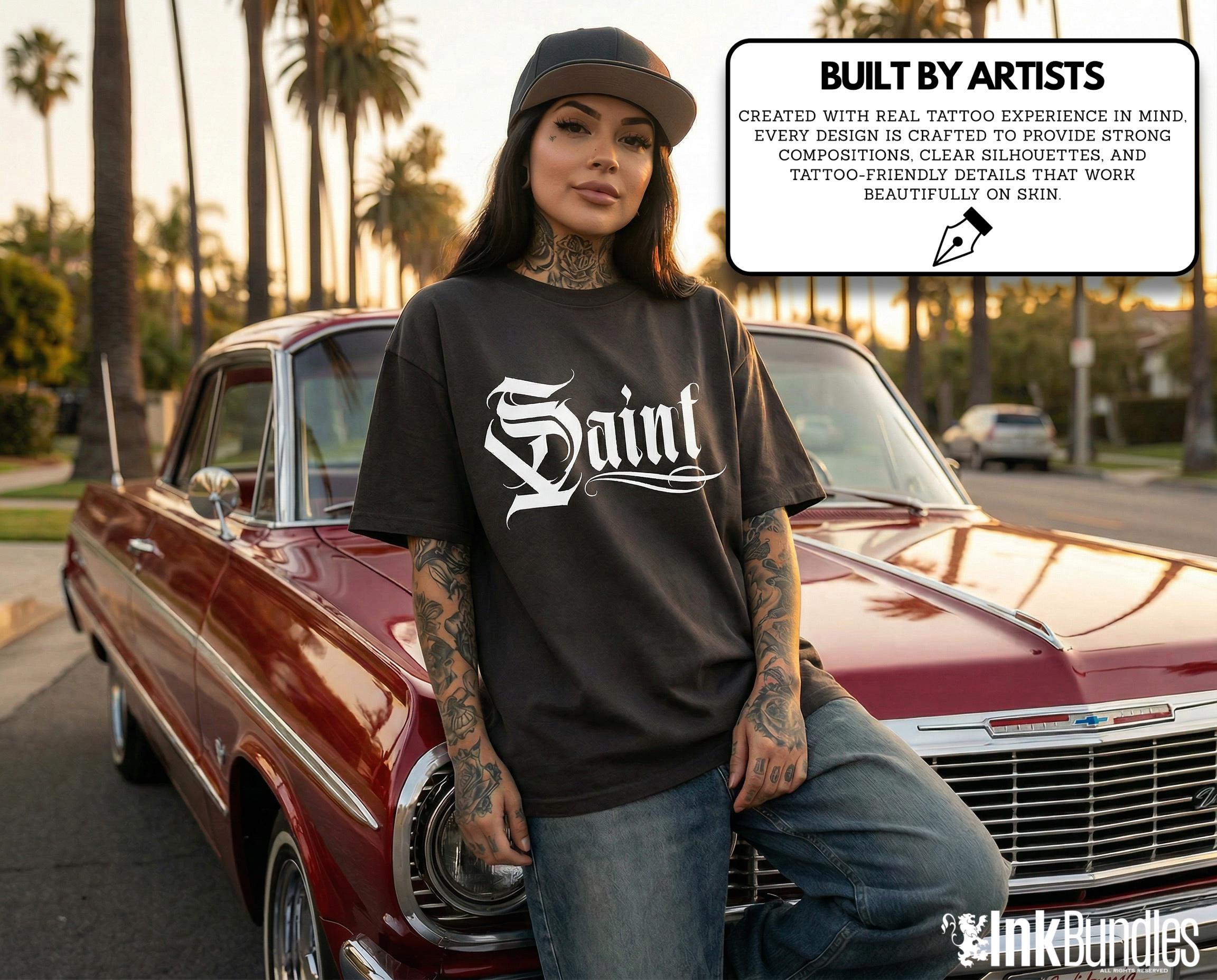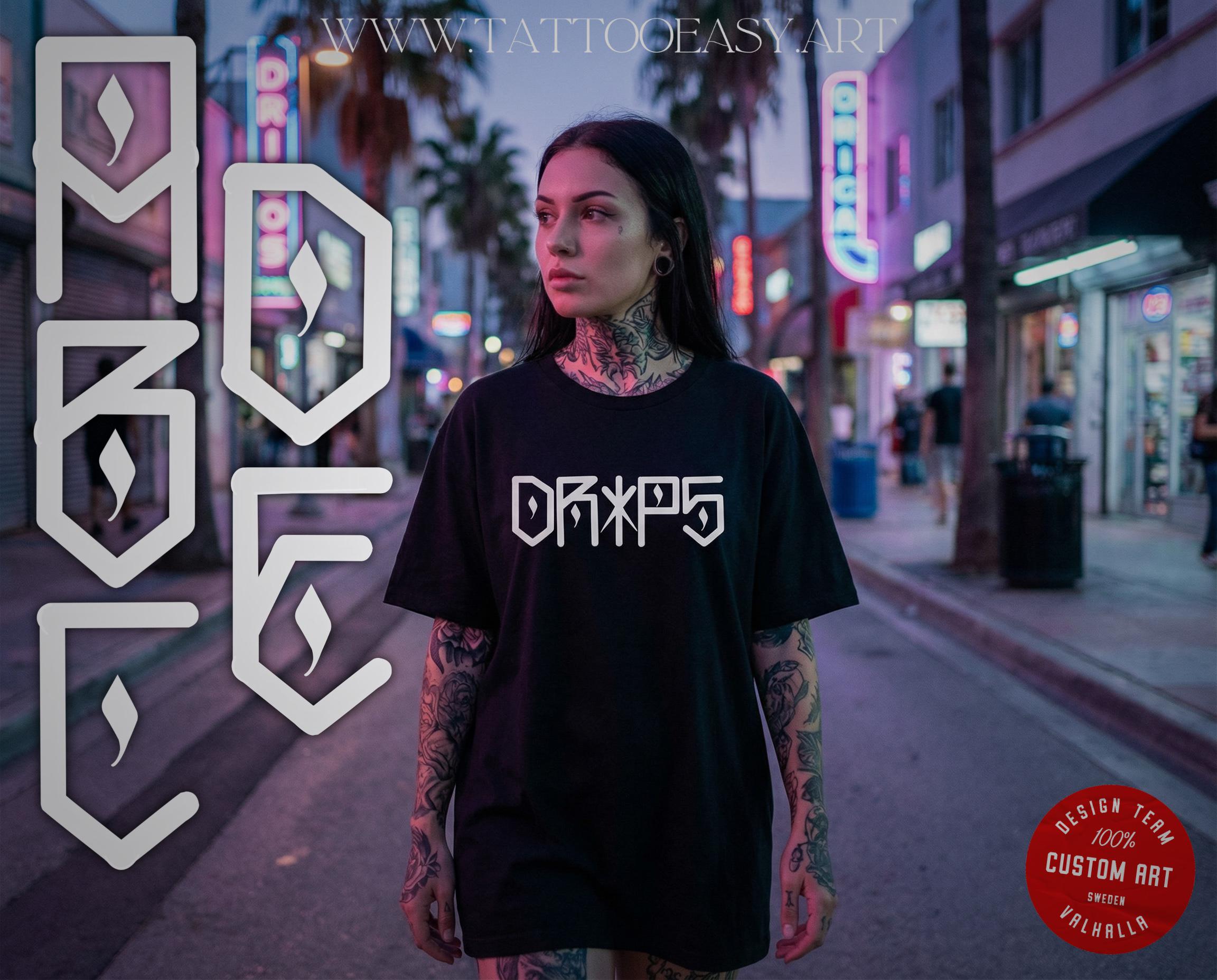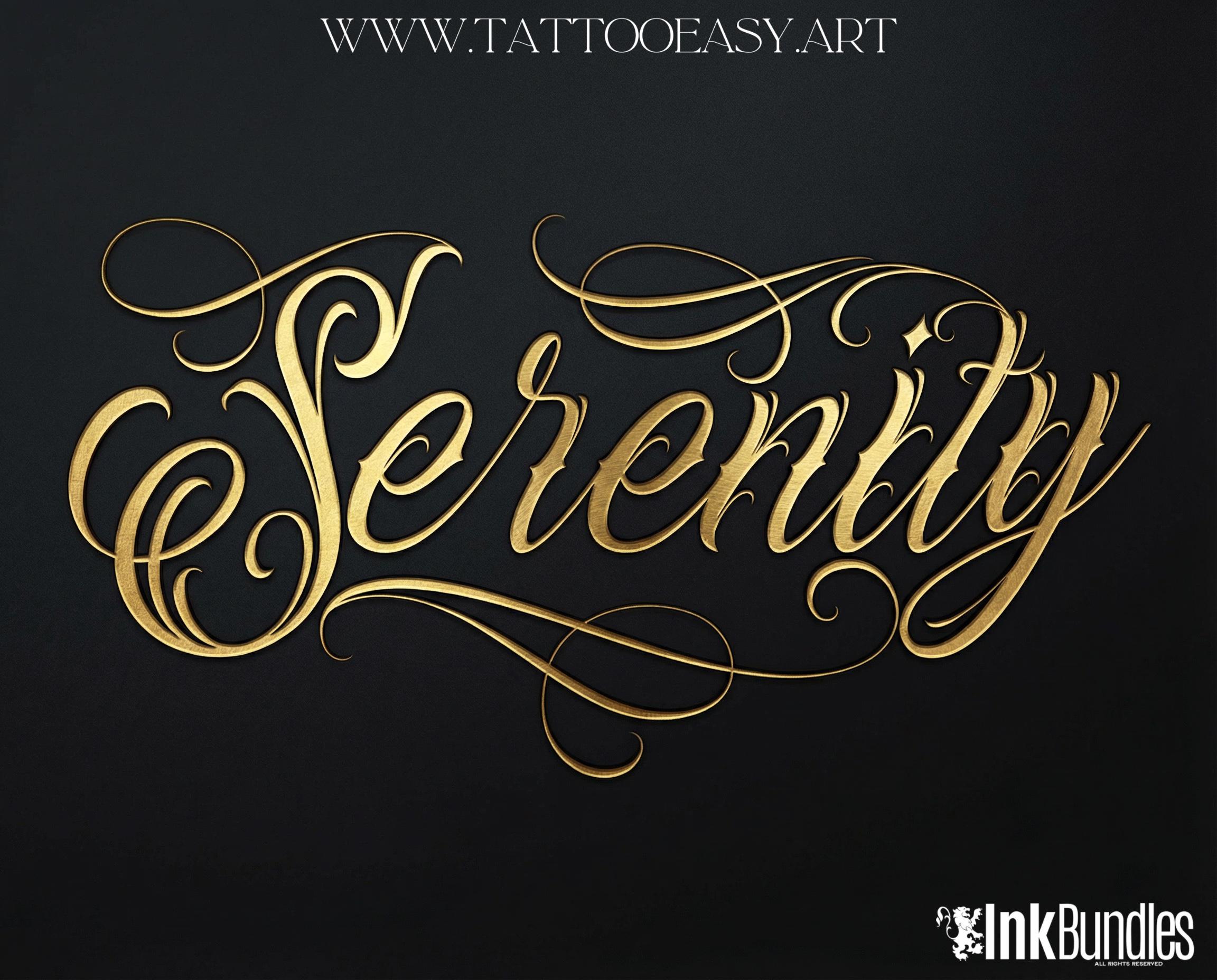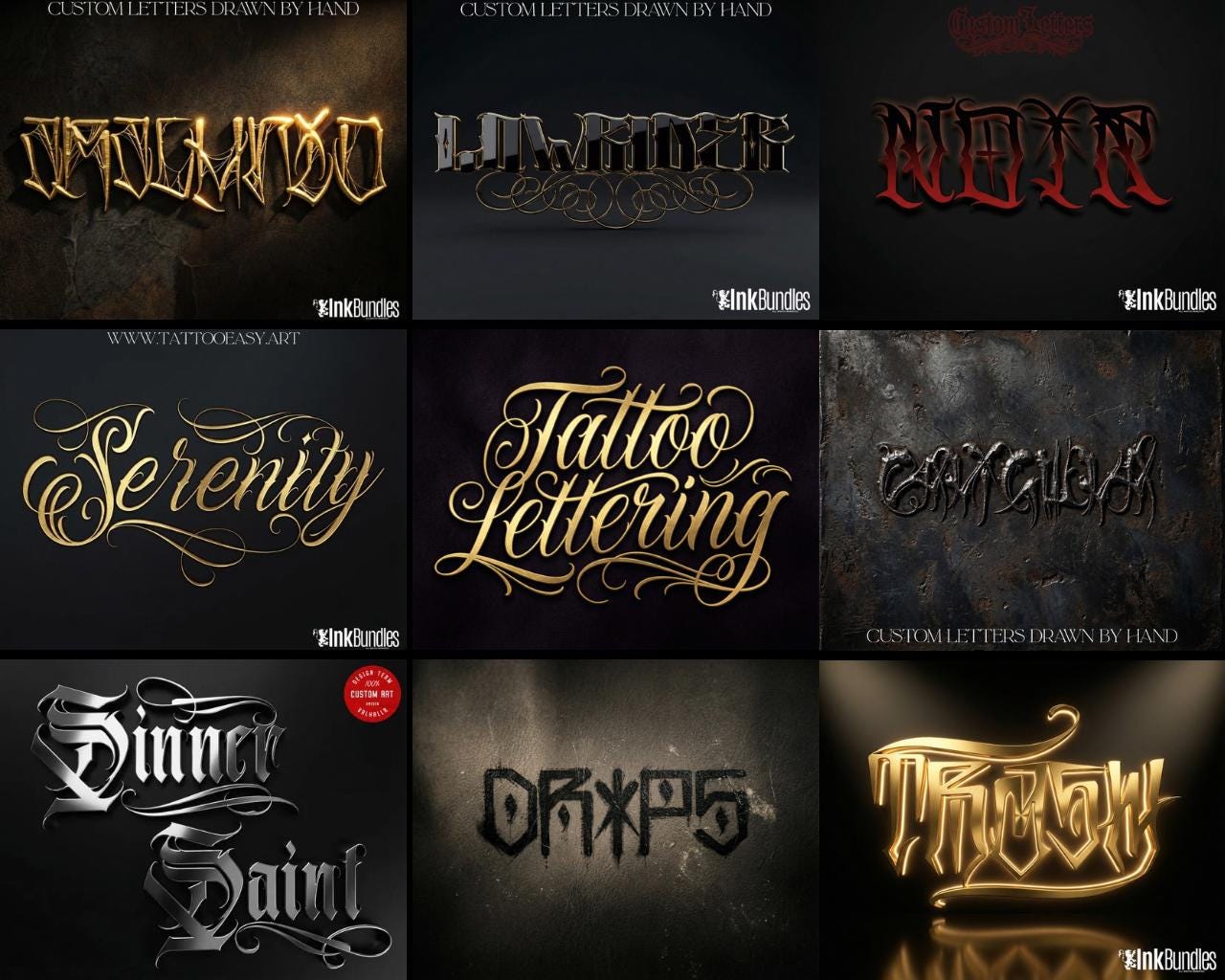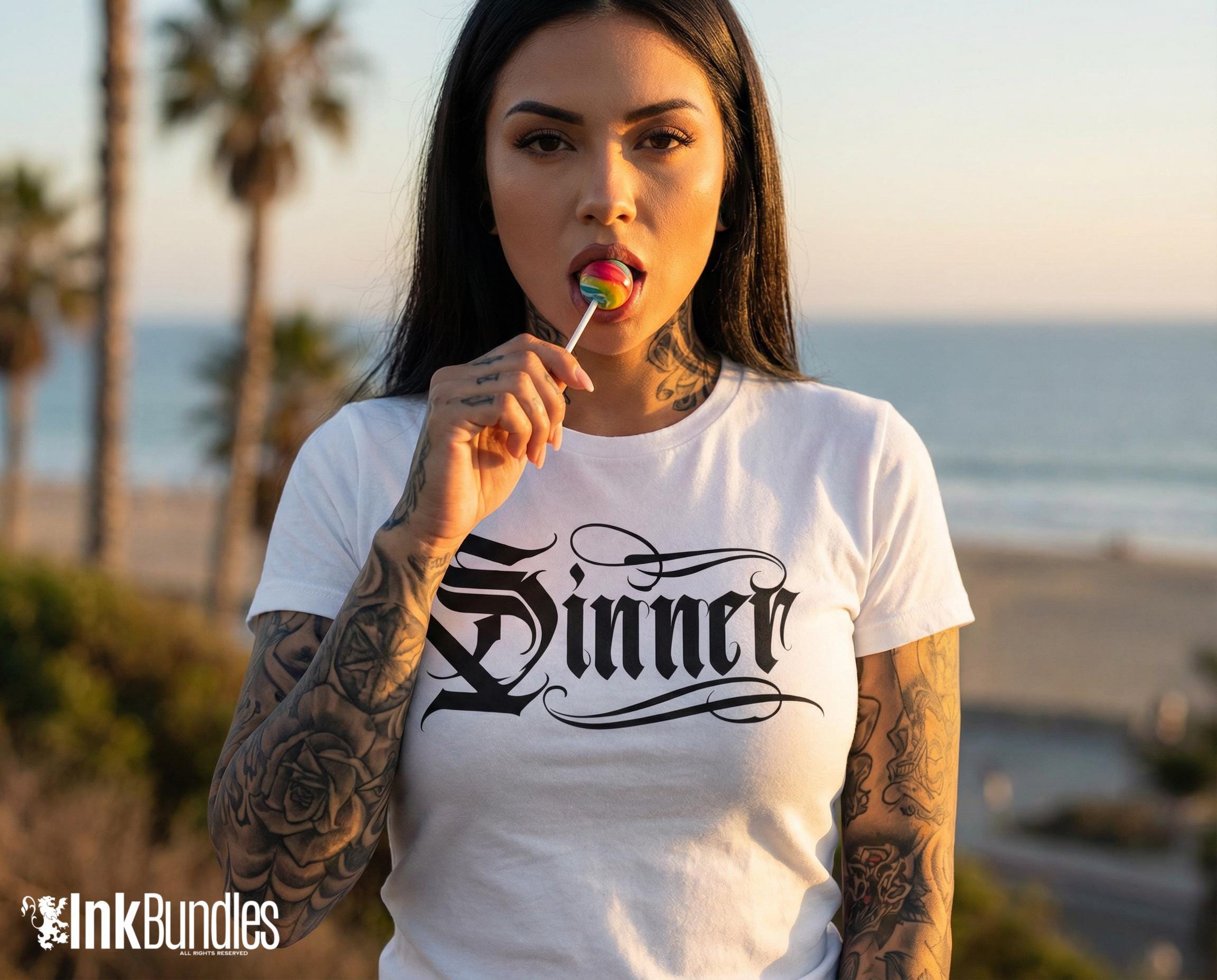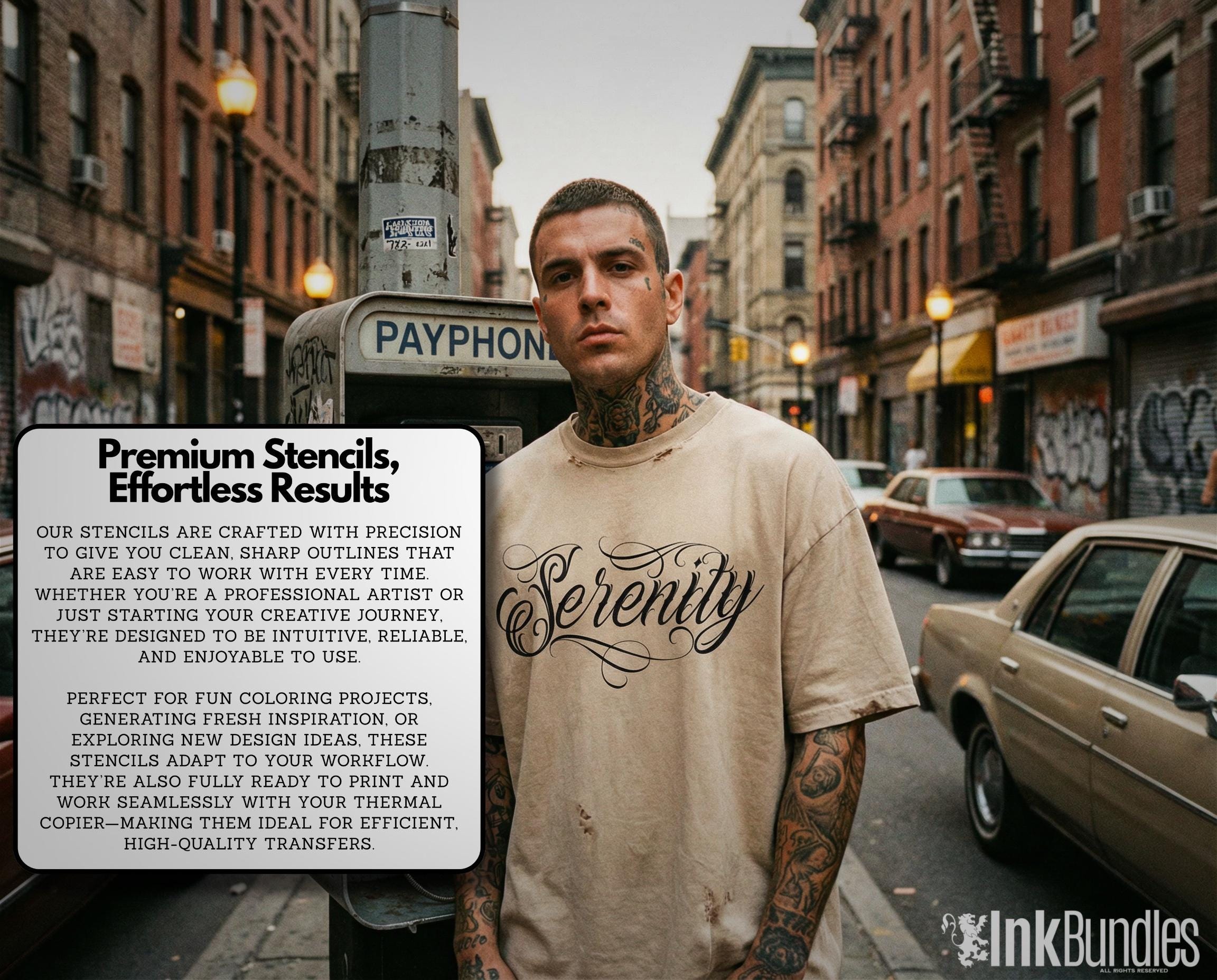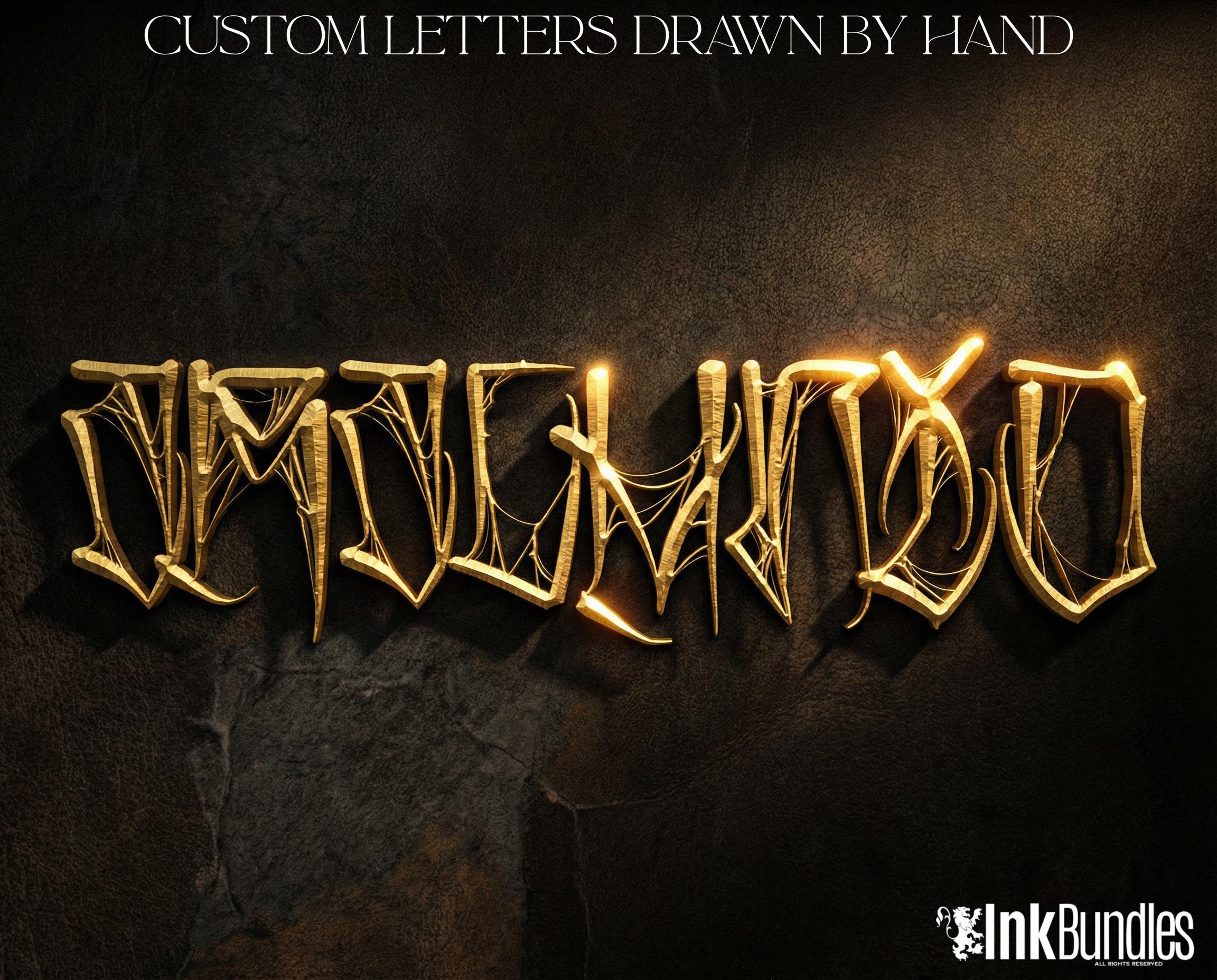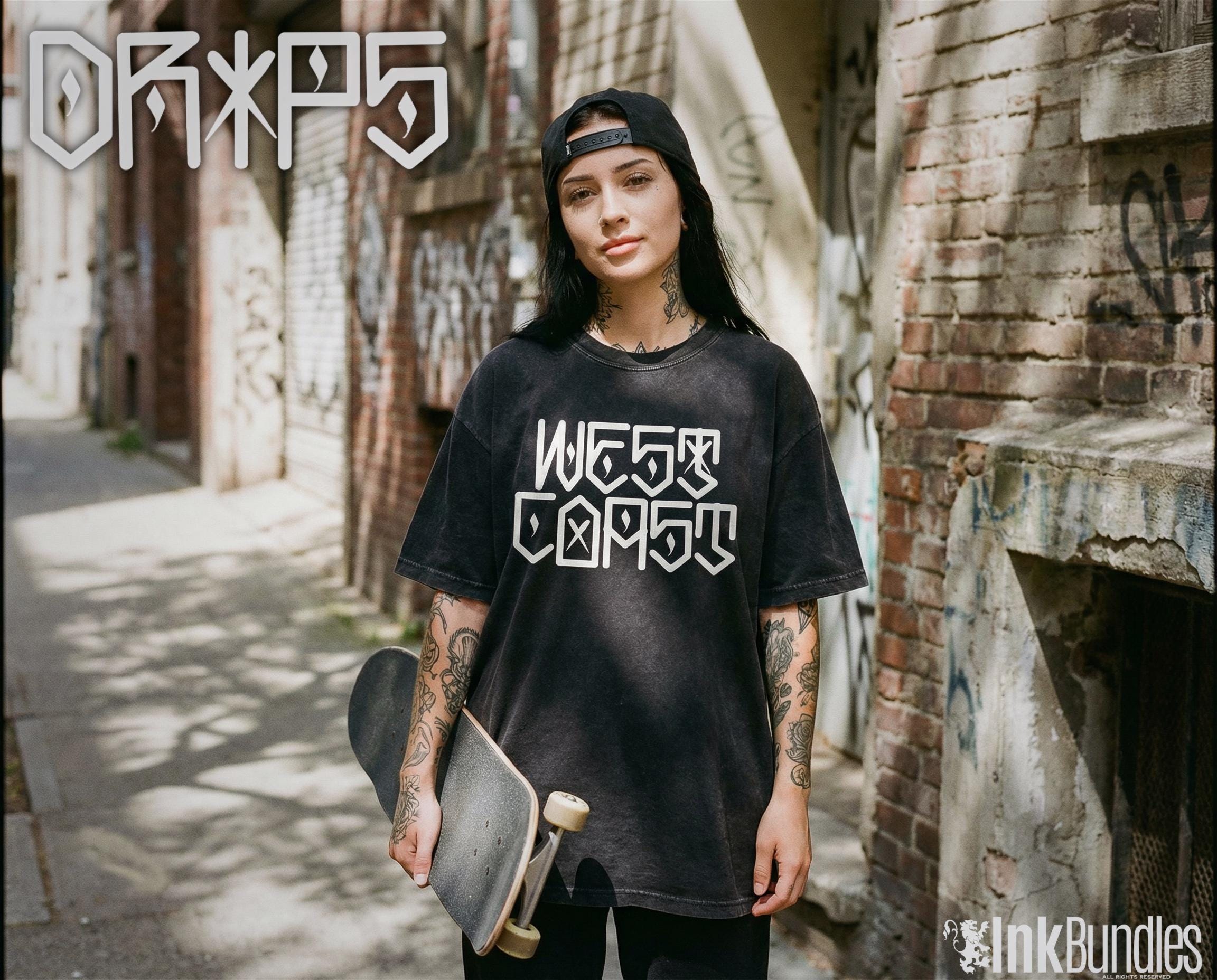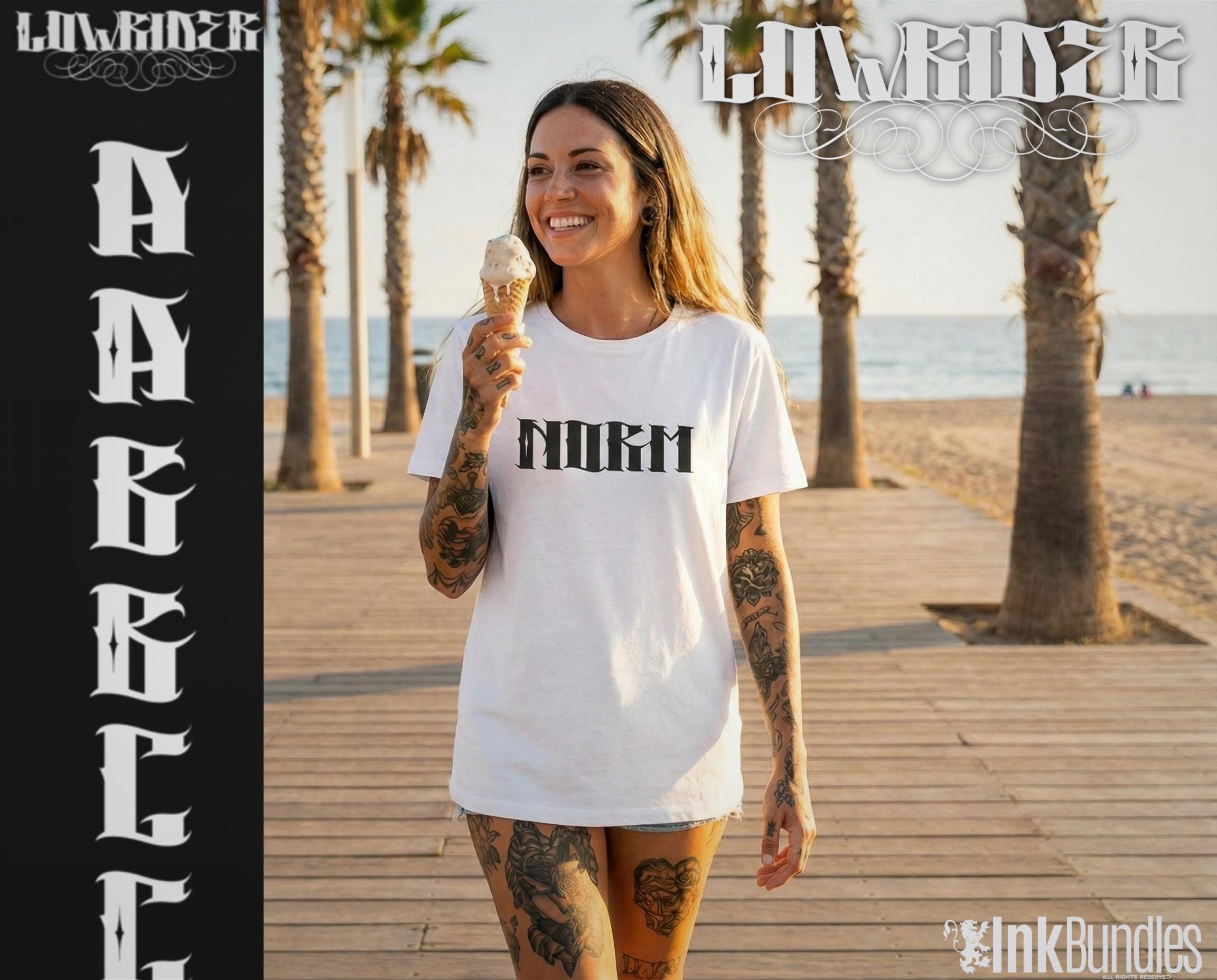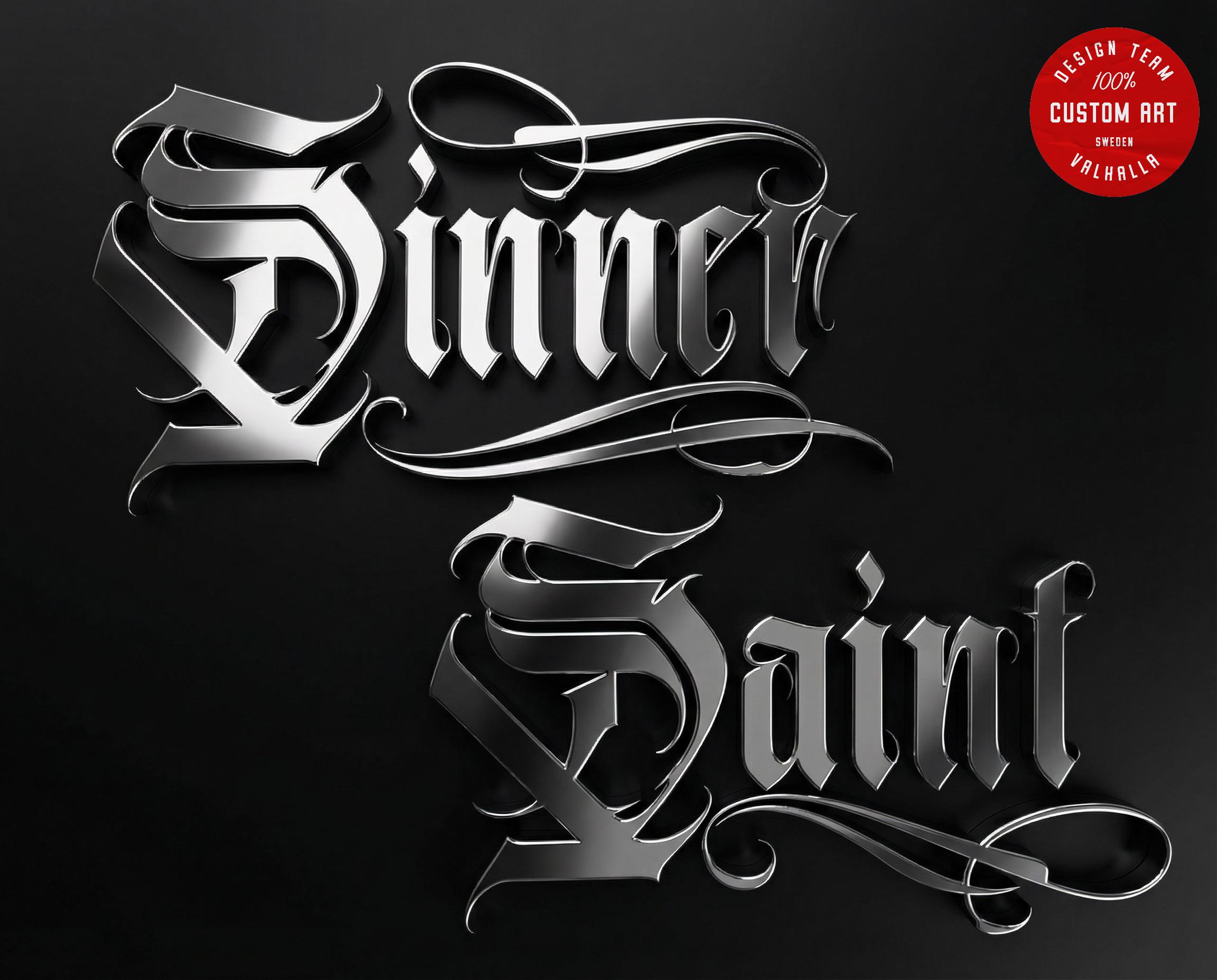
Tattoo Lettering Bundle for Procreate – Chicano Fonts, Custom Script Brushes, PNG & SVG Lettering Pack
Premium tattoo lettering bundle for artists featuring Chicano-style fonts, custom script lettering, and Procreate brushsets. Includes high-quality PNG & SVG files for tattoos, logos, and digital art. Perfect for tattoo artists and designers.
† Arachnid †
† Blackthorn †
† Caligula †
† Drips †
† Homesick †
† Loki †
† Lowrider †
† Noir †
† Serenity †
† Sinner †
† Street letters †
† Trash †
† Ben & Jerrys †
† Blackletters †
† Vixen †
Introducing Tattoo Lettering Bundle Vol. 3 – The Ultimate Creative Lettering Toolkit
Take your artistry to the next level with Tattoo Lettering Bundle – Volume 3, a powerful addition to our renowned series. Designed for tattoo artists, graphic designers, and lettering enthusiasts, this bundle is packed with expertly crafted fonts and tools to elevate your work.
From bold scripts to intricate blackletter styles, Vol.3 offers an extensive selection of high-quality lettering options perfect for tattoos, T-shirts, stickers, logos, and more. Whether you're creating a masterpiece for a client or exploring personal projects, this collection provides the perfect balance of edge, elegance, and expression.
✦ Multiple Complete Alphabets
✦ Decorative Ornaments
✦ Elegant Swashes, Flourishes & Embellishments
This toolkit is built to empower creators across multiple industries:
✍ Tattoo Artists: Create authentic custom lettering stencils, digital mockups, and accurate client previews in seconds.
🖋️Graphic Designers: Design striking brand identities, custom typography prints, and unique packaging.
🔱Digital Artists: Seamlessly blend traditional tattoo typography into your existing digital illustrations.
🐉Apparel & POD Sellers: Craft high-quality, typography-based clothing and merchandise that stands out.
🦅Small Business Owners: Build your own professional logos and promotional materials.
▻ Tattoo Design Mockups & Stencils
▻ Flash Sheet Lettering & Art
▻ T-Shirt & Merchandise Designs
▻ Logo Design & Brand Identity
▻ Album & Book Cover Art
▻ Wall Art, Printables, & Posters
▻ Social Media Graphics & Stories
▻ Digital Planners, Journals, & Decals
Instant & Effortless Application Simply tap to stamp your letters in Procreate or drag-and-drop the .png/.svg files into your preferred software. Say goodbye to restrictive text boxes, complex kerning menus, and typing out fonts. You have pure creative freedom to build your words piece by piece, exactly how you envision them.
Complete Creative Control Warp, rotate, and flip elements freely to fit human anatomy, complex canvas shapes, or custom banners. Because each letter operates on its own layer or as its own file, you can overlap, interlock, and manipulate your typography to build highly stylized monograms and scripts.
👑
Infinite Scalability & Professional Quality Expect crisp, high-resolution output that is entirely print-ready. The included .svg vector files allow you to resize your lettering to any dimension—from a tiny sticker to a massive storefront banner—without a single drop in quality. Consistent stroke weights ensure an authentic, hand-painted tattoo aesthetic.
Endless Customization Change colors instantly to match your project's mood. Add grain, textures, drop shadows, and clipping masks to create distressed, vintage, or heavily shaded looks. Layer your letters effortlessly with your existing digital art tools.